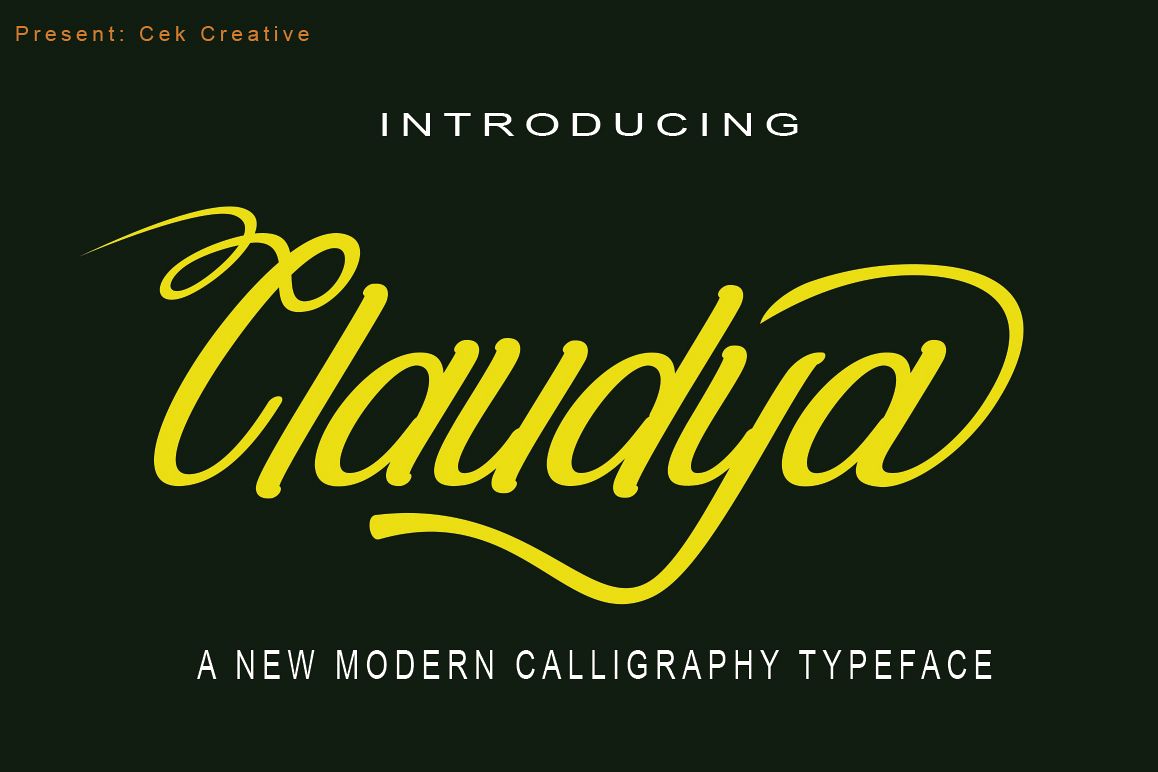
Claudya
Claudya Modern
Calligraphy. This font was designed by handwriting, and it has a modern
and unique forms of calligraphy, the writing style is very natural. Claudya has a very unique style of calligraphy, it is very suitable
for use in the work of modern design. The Features of this fonts is:
* Standart ligatures
* Stylistic Alternates
* PUA Unicode (Private Use Areas)
up and down like a dancer. Claudya has a very unique style of
calligraphy, it is very suitable for use in the work of modern design.